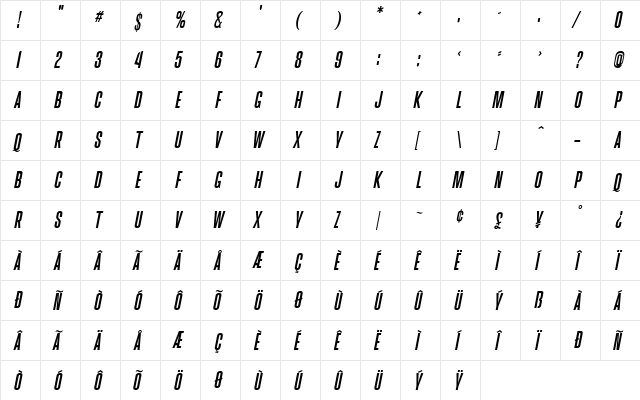
Brusio Italic
| Foundry | James Barnardo |
| Designer | James Barnardo |
Design Context for Brusio Typeface
Brusio takes a measured approach to typography — its balanced proportions and neutral character make it a reliable workhorse for both digital and print work. The slanted form adds forward momentum and visual energy.